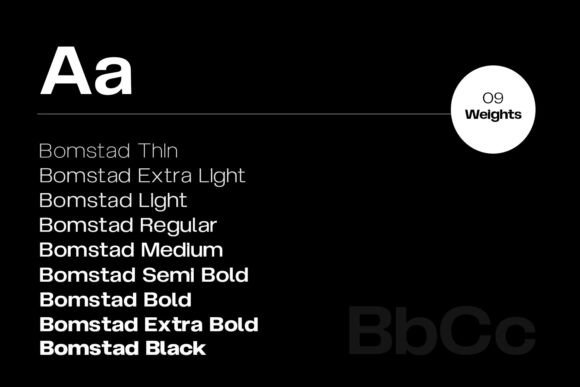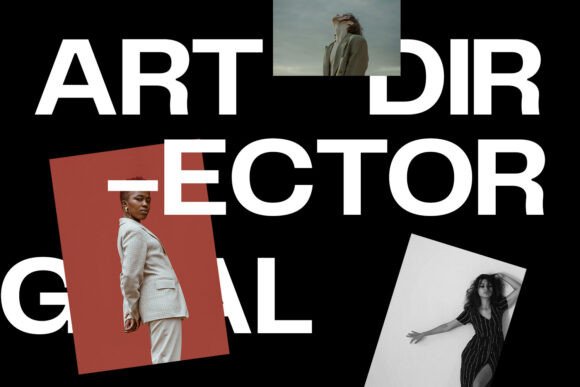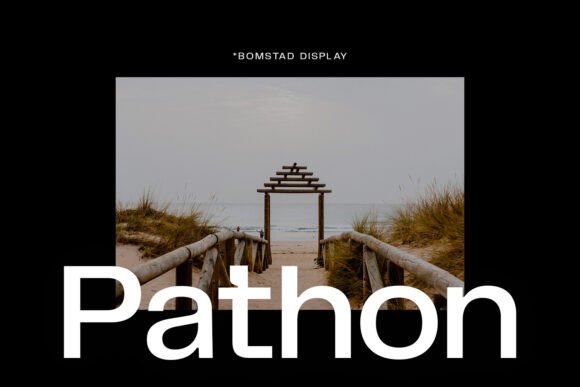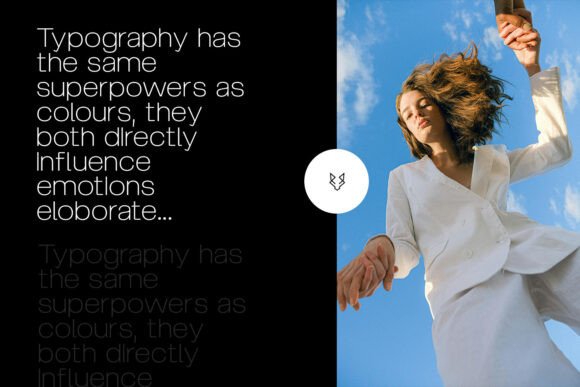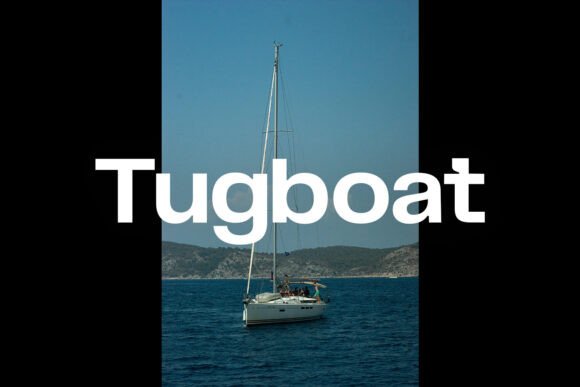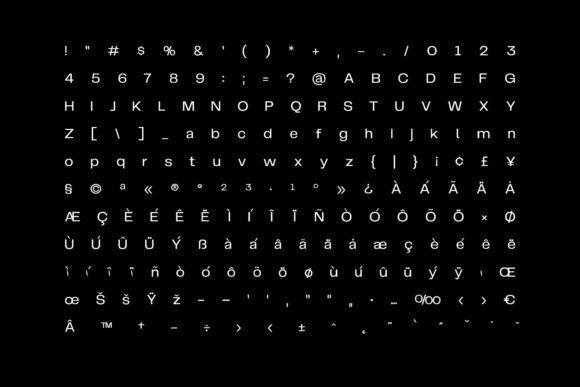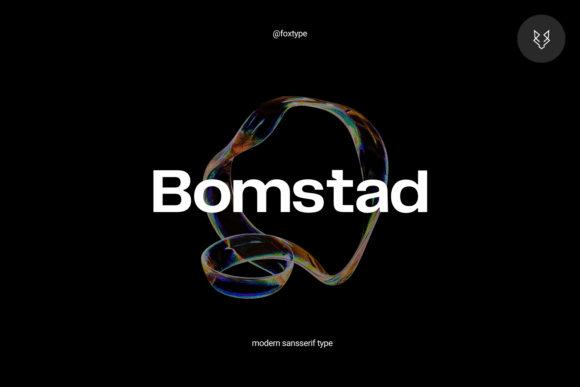
I still remember the frustration of working on a project, hours spent crafting the perfect layout, only to realize that the font I chose wasn’t quite right. The client wanted something modern, yet elegant; something that would make their brand stand out, but not look too flashy. I scoured the internet, tried out countless fonts, but nothing seemed to fit the bill. That’s when I stumbled upon Bomstad, a modern sans-serif typeface that has since become my go-to for a wide range of design projects.
Introducing Bomstad: The Ultimate Design Companion
Bomstad is a meticulously crafted font, designed to excel in creating striking headlines, captivating posters, and sophisticated branding materials. With 9 versatile weights, this font is perfect for designers, crafters, and creative hobbyists looking to elevate their work. Its clean lines and contemporary style make it an ideal choice for magazine covers, logo designs, paragraph texts, and more.
What I Love About Bomstad
• ✨ Versatility: With 9 weights, Bomstad can be used for a wide range of design projects, from elegant headlines to body text.
• ✅ Clean Lines: The font’s clean lines and modern style make it perfect for creating sophisticated branding materials and magazine covers.
• 💡 Legibility: Bomstad is designed to be highly legible, even at small font sizes, making it perfect for body text and paragraph text.
While Bomstad is an excellent font, there are a few quirks to be aware of:
• 🤔 Limited Ligatures: Bomstad has a limited set of ligatures, which may not be ideal for certain design projects.
• ⚠️ Not Suitable for Body Text: While Bomstad can be used for body text, it’s not the most optimal choice. It’s best suited for headlines, titles, and short paragraphs.
The Story Behind Bomstad
Bomstad was designed by a team of typographers who wanted to create a modern sans-serif font that would excel in a wide range of design projects. Inspired by the clean lines and simplicity of modern design, Bomstad was crafted to be both elegant and versatile. The font’s name, Bomstad, comes from the Norwegian word for “beautiful city,” reflecting the team’s goal of creating a font that would bring beauty and sophistication to any design project.
What is the best use for Bomstad? Bomstad is best used for headlines, titles, and short paragraphs, where its clean lines and modern style can shine.
Is Bomstad suitable for body text? While Bomstad can be used for body text, it’s not the most optimal choice. It’s best suited for headlines, titles, and short paragraphs.
Is Bomstad available in different weights? Yes, Bomstad comes in 9 versatile weights, ranging from thin to black.